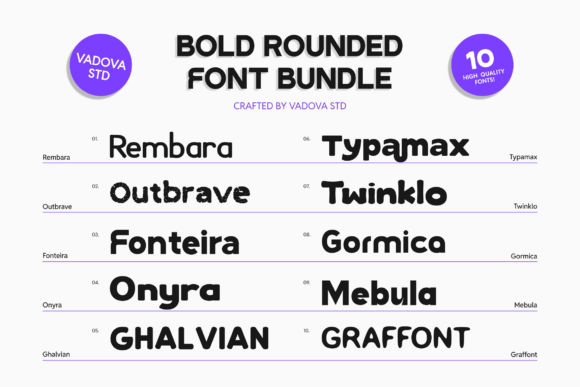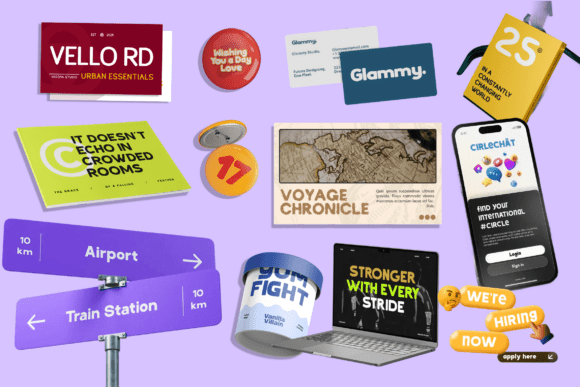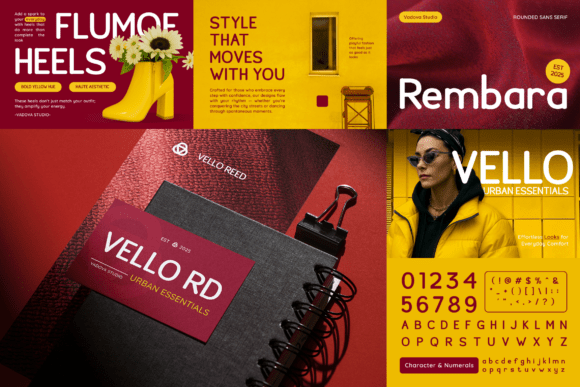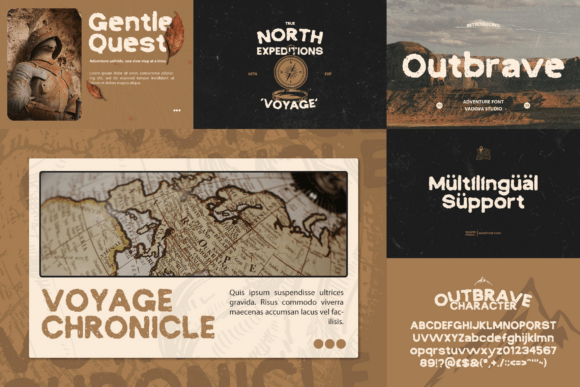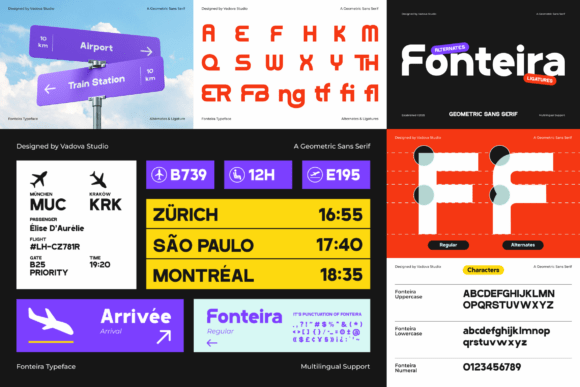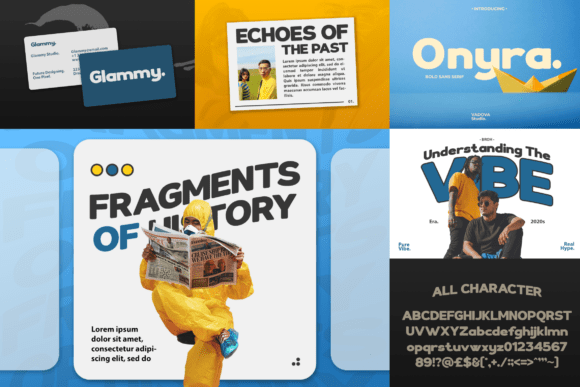
Introduction to Bold Rounded Font
You’re working on a creative project, and you need a font that makes a statement without overwhelming your audience. The perfect solution is right in front of you: the Bold Rounded Font Bundle. This incredible collection of typefaces is designed to deliver a confident yet approachable look, making it perfect for contemporary visual needs.
With its unique blend of bold weight and smooth rounded edges, the Bold Rounded Font Bundle offers a high-quality design resource that’s both powerful and easy to read. Whether you’re building a modern brand, creating digital content, or designing promotional materials, this versatile typographic solution is sure to impress. Plus, with its clean structure and transparent background, you can focus on what matters most – bringing your creative vision to life.
Key Features of Bold Rounded Font
- High-quality design with clear and legible characters for creative projects.
- Features a transparent background, making it easy to use on any design resource without worrying about unwanted backgrounds.
- Unique rounded font style adds a touch of modernity and sophistication to any creative project or design.
Honest Review: Bold Rounded Font
As a designer, I’m always on the lookout for high quality fonts to elevate my creative projects. The Bold Rounded Font caught my eye with its unique style and versatility.
- High quality design: The Bold Rounded Font has a professional and polished look that’s perfect for a wide range of applications.
- Easy to read: The rounded edges make it easy on the eyes, even for long blocks of text.
- Transparent background: The transparent background allows for seamless integration with other design elements.
- Limited character set: The font only includes a limited character set, which may not be suitable for complex text-based projects.
Overall, I’m impressed with the Bold Rounded Font’s unique style and high quality design. While it may have some limitations, it’s a great resource for designers looking for a creative solution. I’d definitely recommend it for personal projects or small design tasks.
The Bold Rounded Font is commonly used in logos, branding, and other design elements where a high quality, rounded font is desired. It’s also great for creating a cohesive look and feel across multiple design elements.
To get the most out of the Bold Rounded Font, use it in combination with other design elements to create a cohesive look and feel. Experiment with different font sizes and colors to find the perfect combination for your design.